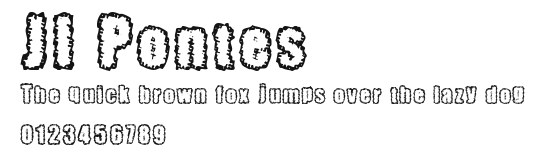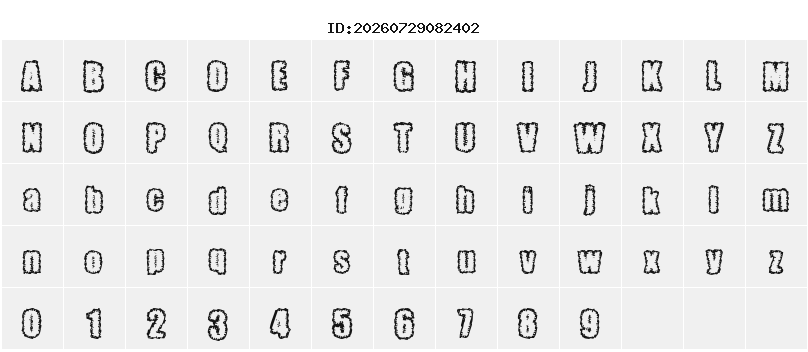
• Font Name: JI-Pontes
• Full Font Name: JI-Pontes
• PostScript Name: JI-Pontes
• Designer: JupiterImages
About JI-Pontes.ttf
JI-Pontes.ttf is a modern, elegant sans-serif font designed for ultimate readability and visual harmony. Perfect for branding, headlines, web design, and print materials.